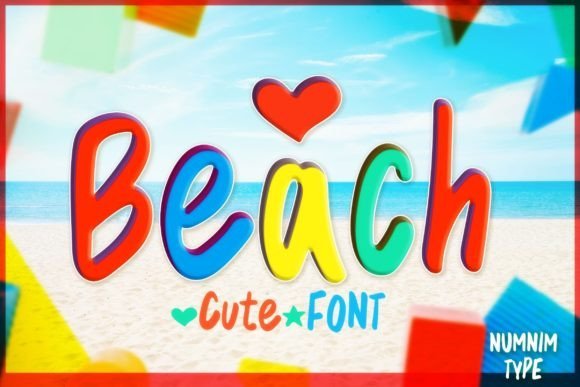
Discovering the Perfect Font for Your Summer Vibes
As I sat on the beach, watching the sunset with a cold drink in hand, I stumbled upon a moment of pure creative bliss. The sound of the waves, the smell of the saltwater, and the feeling of the sand between my toes inspired me to create something truly unique. And that’s when I found it – a font that perfectly captured the essence of a summer day: Beach Font.
Beach Font is a cool and uniquely crafted handwritten font, designed specifically for the LGBT+ community. Its fun and playful characters make it the perfect font for stickers, mugs, t-shirts, ornaments, and even event invitations. As a designer, I know how valuable it is to have a font that truly speaks to your audience, and Beach Font delivers just that.
Whether you’re creating summer-themed merchandise or simply want to add a touch of personality to your designs, Beach Font is a must-have in your font library. Its versatility and uniqueness make it a valuable addition to any designer’s toolkit, and I’m excited to share its story with you.
Key Features of Beach Font
- Font Style: A handwritten, cursive font with a relaxed, beach-inspired feel.
- Unique Characteristics: Features a mix of casual and elegant elements, with subtle texture and imperfections that evoke a sense of handmade craftsmanship.
- Font Variations: Available in multiple weights, including Light, Regular, and Bold, to suit different design needs and styles.
Beach Font Review
Overall, I think Beach Font is a great addition to any designer’s toolkit. The font is designed to evoke a sense of relaxation and calmness, which is perfect for any beach-themed project.
- The font’s playful and casual feel makes it perfect for projects that need a laid-back vibe.
- The Beach Font includes a range of weights and styles, making it versatile and easy to use.
- The font’s rounded edges and soft lines give it a friendly and approachable feel.
- The font may not be suitable for projects that require a more formal or serious tone.
- The Beach Font is not as comprehensive as some other font families, with limited language support and character sets.
- The font’s playful feel may not be suitable for all audiences, particularly those who prefer a more straightforward or serious design aesthetic.
Overall, I think Beach Font is a great choice for designers who want to add a touch of whimsy and relaxation to their projects. While it may not be the best choice for every project, it’s a great addition to any designer’s toolkit.
Tips for Getting the Most Out of Beach Font
Use Beach Font for beach-themed designs, such as invitations, posters, and social media graphics.
Combine Beach Font with other beach-themed elements, such as seashells and palm trees, to create a cohesive design.
Experiment with different font sizes and colors to add visual interest to your design.